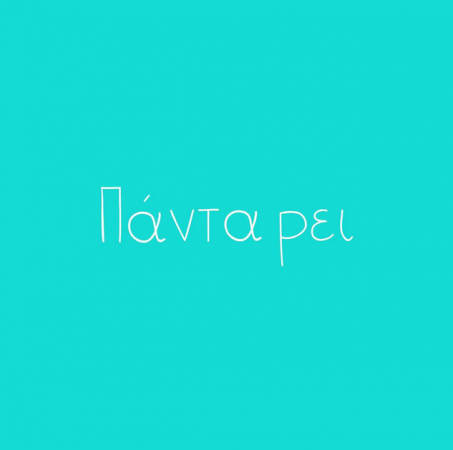
Discover the Charm of Chloé Font: A Sweet, Romantic, and Hipster Typeface
Are you a designer or crafter looking for a unique and captivating font to elevate your creative projects? Look no further than Chloé, a beautiful handwritten typeface designed by GUD. With its sweet, romantic, and slightly hipster vibe, Chloé is the perfect choice for those who want to add a touch of personality to their designs.
The Story Behind Chloé
Chloé is a carefully crafted font that exudes warmth and character. Its handwritten style gives it a personal and approachable feel, making it ideal for a wide range of applications, from wedding invitations and branding materials to social media graphics and craft projects.
Key Features of Chloé Font
- Handwritten style: Chloé’s handwritten style gives it a unique and personal touch, setting it apart from more traditional fonts.
- Sweet and romantic: Chloé’s curves and swashes evoke a sense of romance and whimsy, making it perfect for designs that require a touch of elegance.
- Hipster vibe: Chloé’s subtle hipster flair makes it a great choice for designers and crafters who want to add a bit of edge to their work.
- Multilingual support: Chloé supports multiple languages, including Greek, making it a versatile choice for international projects.
Why Choose Chloé Font?
So, why should you choose Chloé for your next design project? Here are just a few reasons:
- Unique and distinctive: Chloé’s handwritten style ensures that your designs will stand out from the crowd.
- Easy to read: Despite its ornate style, Chloé is surprisingly easy to read, making it perfect for body text and captions.
- Versatile: Chloé can be used for a wide range of applications, from digital designs to print materials.
- Support for special characters: Chloé supports a range of special characters, including Greek letters, making it a great choice for multilingual projects.
Using Chloé Font in Your Designs
Chloé is a versatile font that can be used in a variety of design applications. Here are a few ideas to get you started:
- Wedding invitations and stationery: Chloé’s romantic style makes it perfect for wedding designs, including invitations, programs, and place cards.
- Branding and packaging: Chloé’s unique style makes it a great choice for branding and packaging designs that require a personal touch.
- Social media graphics: Chloé’s playful style makes it perfect for social media graphics, including Instagram posts and Facebook headers.
- Craft projects: Chloé’s whimsical style makes it a great choice for craft projects, including handmade cards, scrapbooking, and DIY decorations.
Chloé is a beautiful and versatile font that is sure to capture the hearts of designers and crafters alike. With its sweet, romantic, and slightly hipster vibe, Chloé is the perfect choice for anyone looking to add a touch of personality to their designs. Whether you’re working on a wedding invitation, branding project, or social media graphic, Chloé is a great choice for any creative project.
So why not give Chloé a try? With its ease of use, versatility, and unique style, it’s sure to become a favorite in your design toolkit.